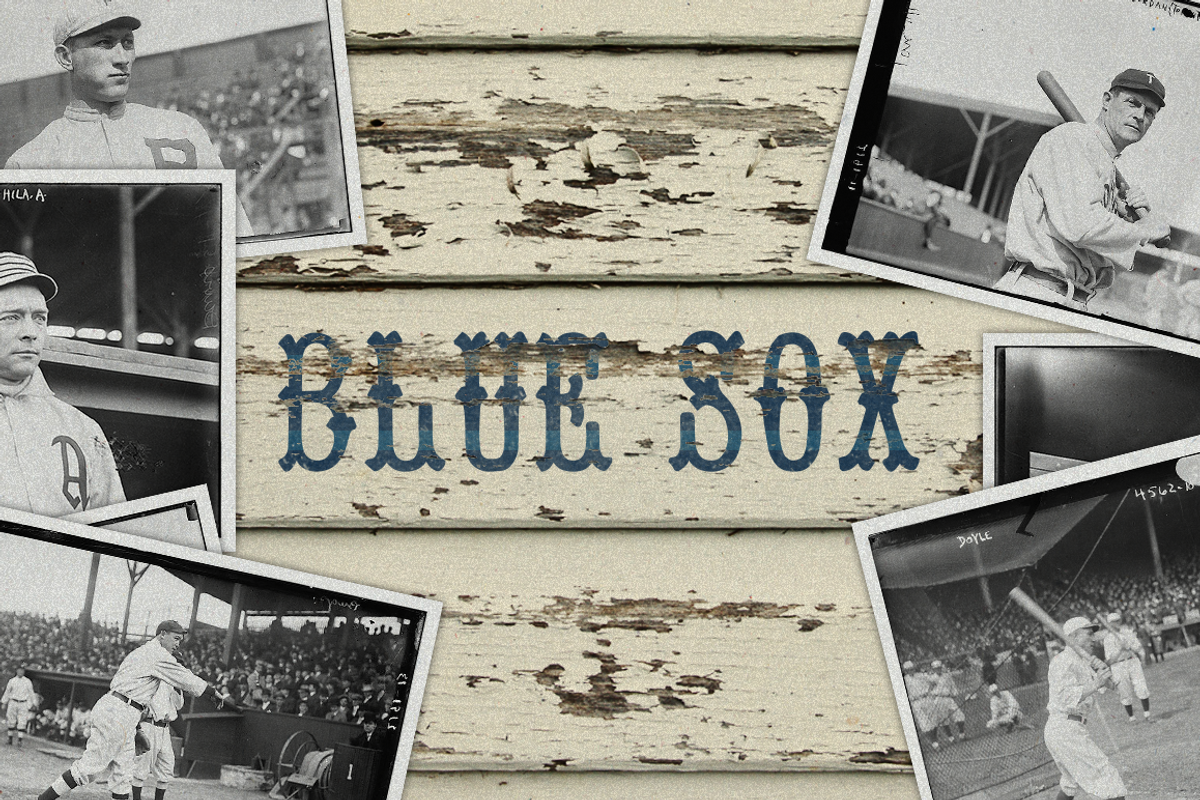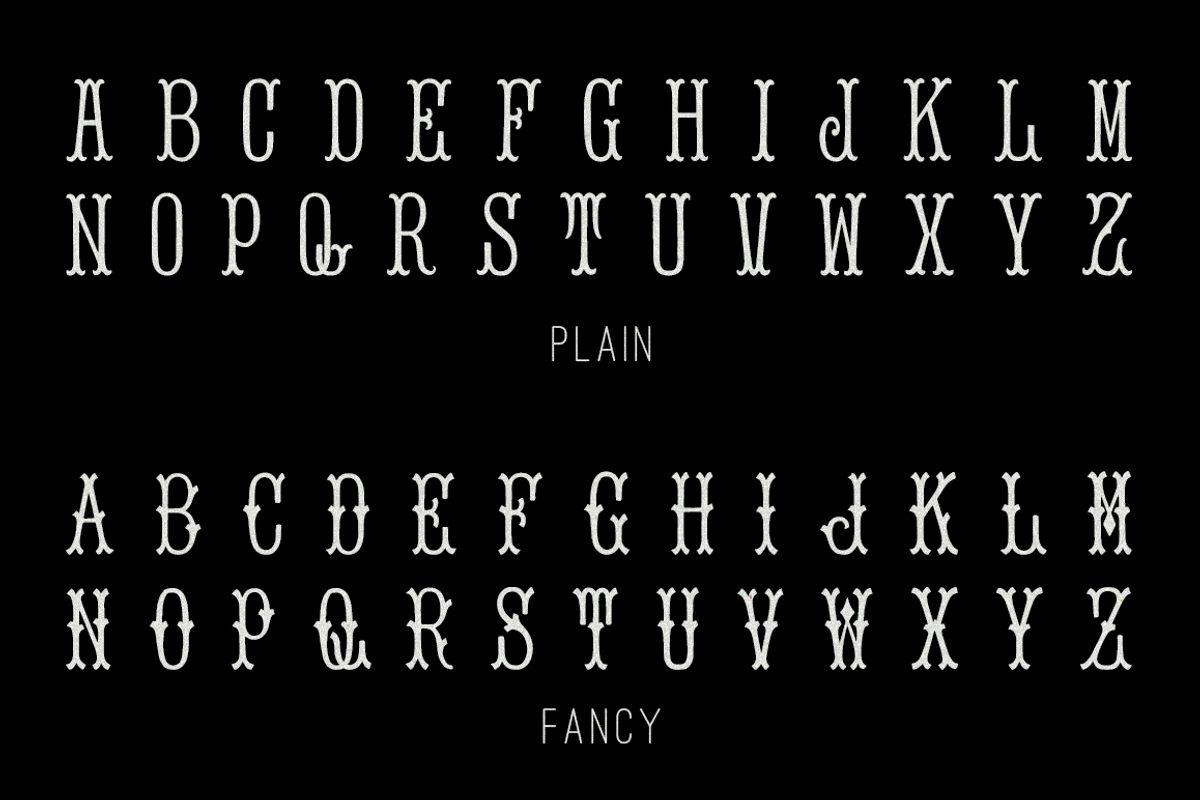
Bee's Knees Font
Bee's Knees Font by Primo’s Workshop is a font selected for branding, posters, packaging, typography.
- These fonts contains the uppercase alphabet characters only.
- No lowercase, numerals, or punctuation just yet.
Why Bee's Knees Font is worth a look
Bee's Knees Font by Primo’s Workshop fits naturally into Branding, posters, packaging, typography.